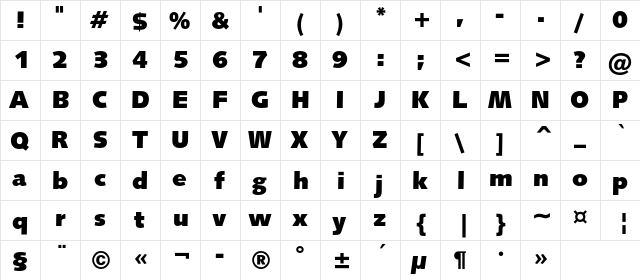
Humanist531C UltraBlack BT Regular
Design Context for Humanist531C UltraBlack BT Typeface
Humanist531C UltraBlack BT offers clean, dependable letterforms without strong stylistic allegiance, making it a practical choice for designers who need flexibility.
Pro Tip: Use Humanist531C UltraBlack BT in both headline and body roles to test its range before committing to a single application.